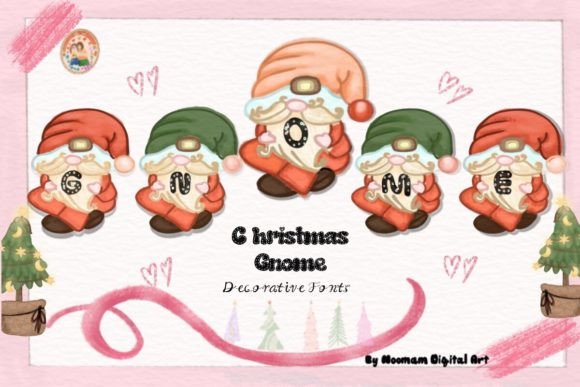
Christmas Gnome Font: Add a Touch of Holiday Magic to Your Designs
The holiday season is upon us, and what better way to get into the festive spirit than with a dash of whimsy and fun in your designs? Introducing the “Christmas Gnome” font, a charming and decorative typeface that brings a playful twist to your holiday creations. In this article, we’ll dive into the world of Christmas Gnome, exploring its unique features, and how you can use it to add a sprinkle of joy to your Christmas cards, invitations, and more.
What is Christmas Gnome Font?
Christmas Gnome is a whimsical and decorative font that takes the traditional concept of typography to a whole new level. Each letter of the alphabet is playfully inscribed on charming gnomes, bringing a touch of fantasy and enchantment to your designs. The font’s unique design makes it perfect for creating festive and cheerful holiday content that stands out from the crowd.
How to Use Christmas Gnome Font in Your Designs
The Christmas Gnome font is incredibly versatile and can be used in a variety of design projects, including:
- Christmas cards: Add a personal touch to your holiday cards with the Christmas Gnome font, making each one a unique and special gift.
- Invitations: Create festive and fun invitations for your holiday parties, gatherings, or events with this delightful font.
- Social media graphics: Bring some holiday cheer to your social media feeds with Christmas Gnome font-infused graphics, perfect for sharing with friends and family.
- Packaging design: Add a touch of whimsy to your holiday product packaging with this charming font, making your products stand out on store shelves.
Benefits of Using Christmas Gnome Font
The Christmas Gnome font offers a range of benefits that make it an excellent choice for your holiday designs:
- Unique and eye-catching: The font’s playful design ensures that your designs will stand out from the crowd and grab attention.
- Festive and cheerful: The Christmas Gnome font embodies the spirit of the holiday season, bringing a sense of joy and merriment to your designs.
- Versatile: The font can be used in a variety of design projects, from digital graphics to print materials.
Tips and Tricks for Using Christmas Gnome Font
To get the most out of the Christmas Gnome font, here are some tips and tricks to keep in mind:
- Experiment with colors: The Christmas Gnome font looks great in a range of colors, so don’t be afraid to experiment and find the perfect hue for your design.
- Mix and match: Combine the Christmas Gnome font with other fonts and design elements to create a unique and visually appealing design.
- Pay attention to spacing: Make sure to adjust the spacing between letters and words to ensure that your design looks balanced and visually appealing.
The Christmas Gnome font is a delightful and enchanting typeface that brings a touch of holiday magic to your designs. With its unique features, versatility, and ease of use, it’s the perfect choice for creating festive and cheerful holiday content. Whether you’re designing Christmas cards, invitations, or social media graphics, the Christmas Gnome font is sure to add a dash of merriment and a sprinkle of joy to your creations.